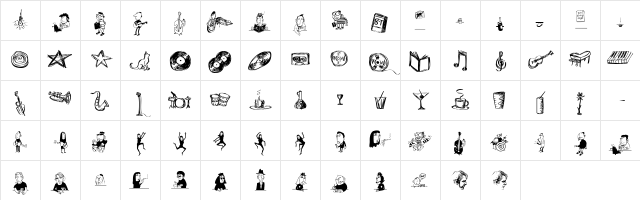
P22 Daddy O Beatsville
Style: Beatsville
P22 Daddy O Family
Design Context for P22 Daddy O
P22 Daddy O is a composed and adaptable typeface that performs quietly and consistently across a wide range of design contexts.